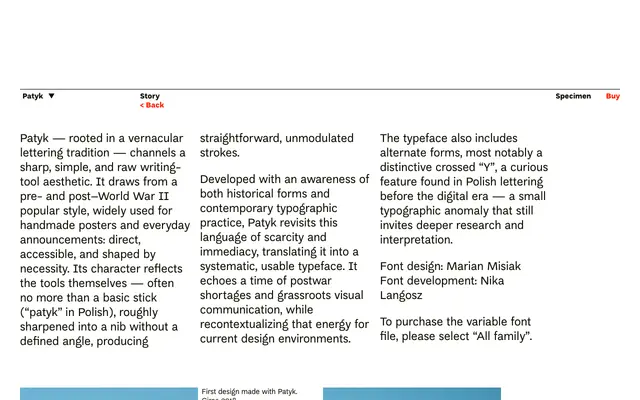
Patyk
Threedotstype · Marian Misiak · 2018
A typeface by Marian Misiak drawn from Polish handmade poster lettering of the pre- and post-war era, translating the raw strokes of a roughly sharpened stick into a systematic digital typeface.
Patyk takes its name and character from the basic stick used by Polish sign-painters and poster-makers before and after World War II, a tool sharpened without a defined angle and producing flat, unmodulated strokes. Designer Marian Misiak has systematised that vernacular energy into a usable typeface, including alternates such as the crossed 'Y' found in Polish lettering of the pre-digital era. Available as a variable font when purchasing the full family.
Patyk is a display typeface rooted in pre- and post-WWII Polish handmade lettering, using unmodulated strokes that evoke a stick-sharpened tool; it sits outside conventional categories as a vernacular display face.